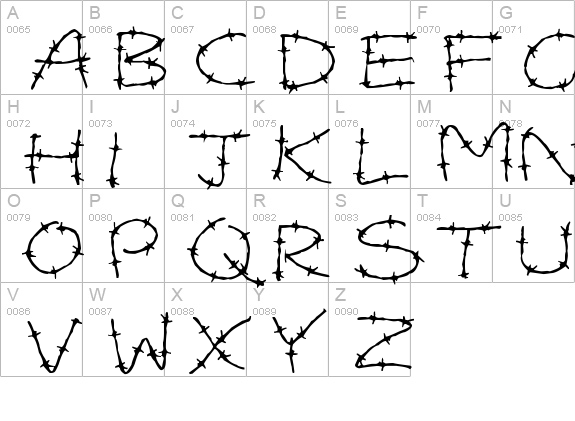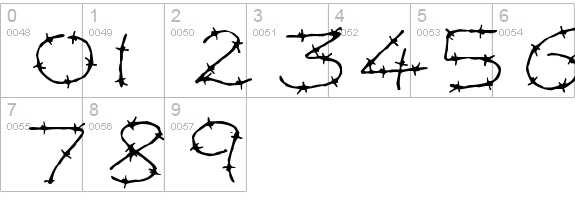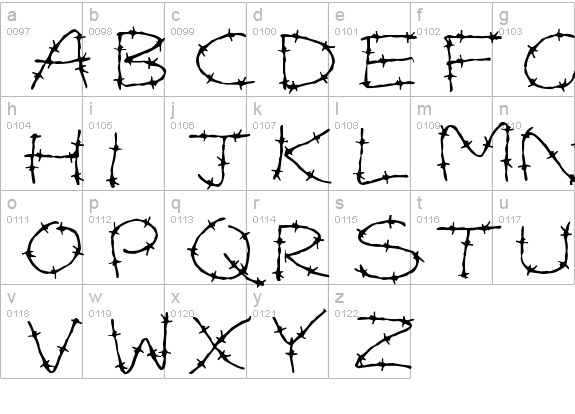
Introducing the edgy and striking Barbed Wires font - a typeface that exudes a sense of ruggedness and defiance. With its sharp and jagged letterforms, this font captures the essence of barbed wires, adding a bold and rebellious touch to any design project. Perfect for creating impactful headlines, posters, or branding materials that demand attention.